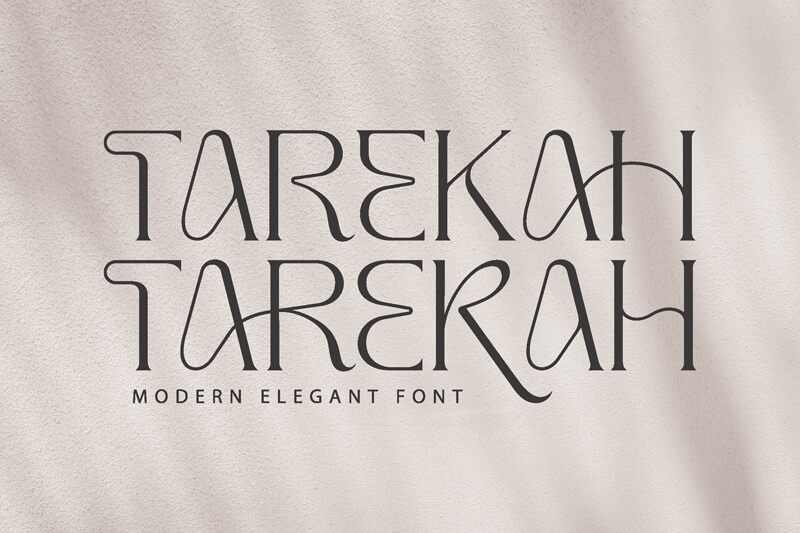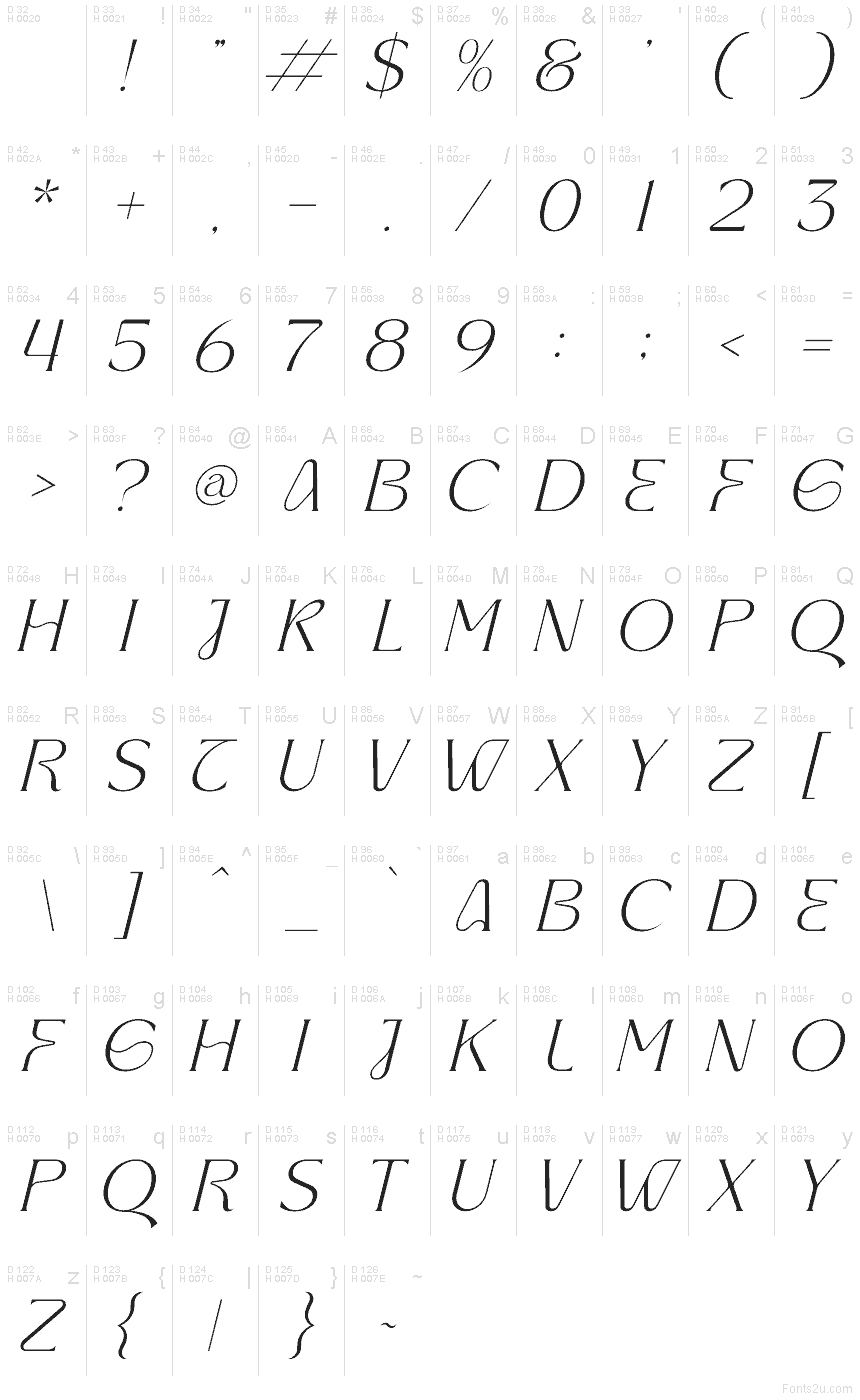
TAREKAH Italic
Tarekah Italic font by Denustudios is a free retro display typeface. It leans with a silky, calligraphic slant, carving ribbon-like strokes that taper into needle-fine points, then swell back with a subtle, jazzy swagger. The Tarekah family’s italic cut feels handcrafted but crisp, giving headlines a lithe rhythm and just enough drama to turn heads without shouting.
Using Tarekah Italic, your titles glide across the page—great for boutique logos, wine or perfume labels, fashion editorials, event posters, album art, and luxe invitations. The generous sweep of the forms loves big sizes; keep tracking modest to preserve its slinky flow. For body copy, pair this free font with a plain, modern sans to let the curves sing.